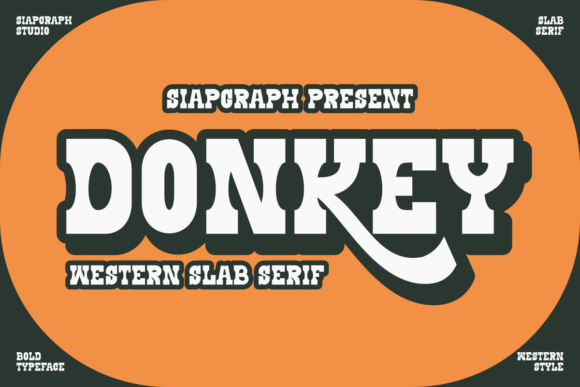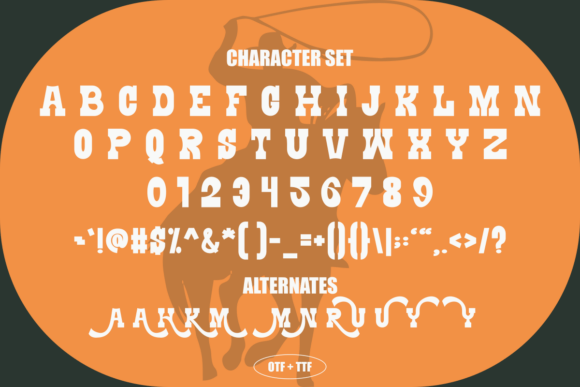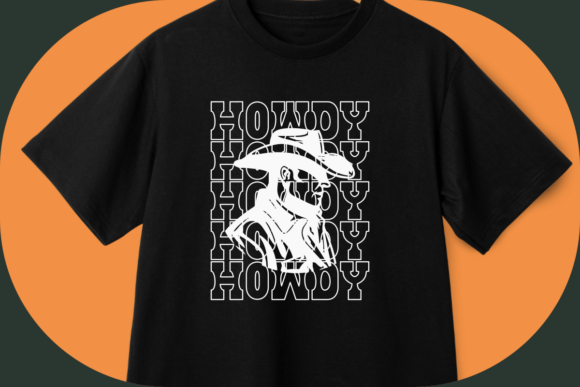
Donkey Font
Donkey is a bold and rugged Western-style slab serif font perfect for crafting eye-catching designs on tshirts. With its thick strokes and distinctive serifs, this font is sure to make a statement. Ideal for vintage-inspired designs, western-themed clothing, and any project that needs a touch of rustic charm.